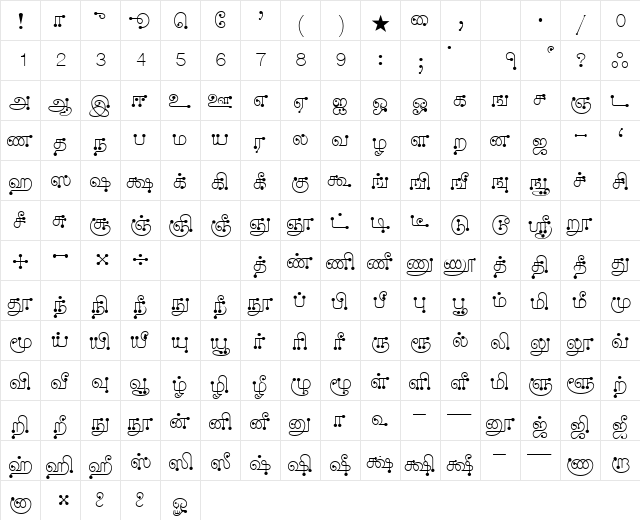
AkrutiTmlDalapati Normal Font Preview
AkrutiTmlDalapati Normal
AkrutiTmlDalapati Normal Font Details
Design Context for AkrutiTmlDalapati Typeface
AkrutiTmlDalapati takes a measured approach to typography — its balanced proportions and neutral character make it a reliable workhorse for both digital and print work.